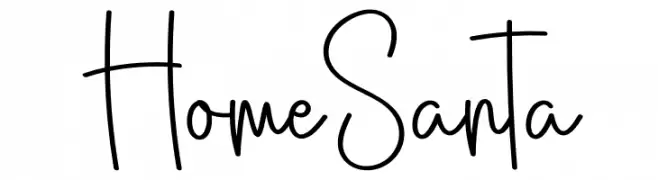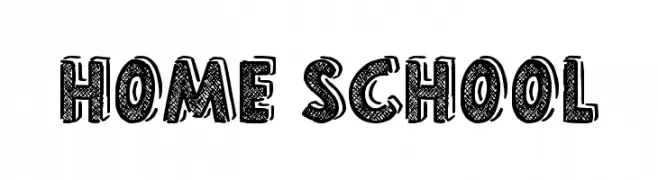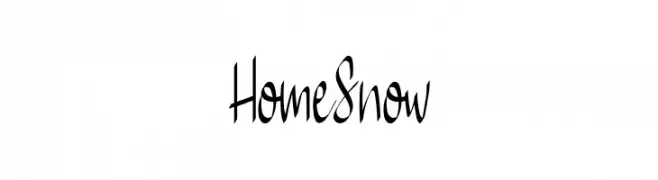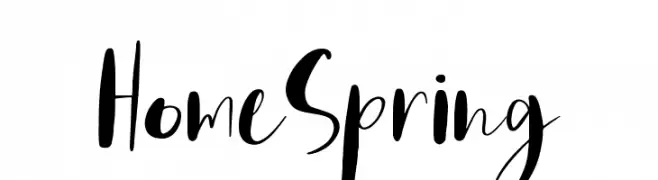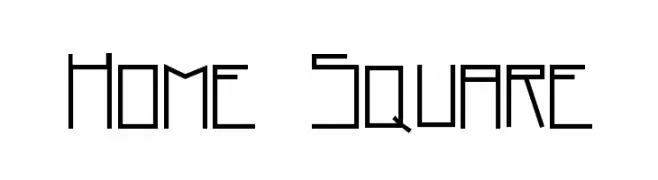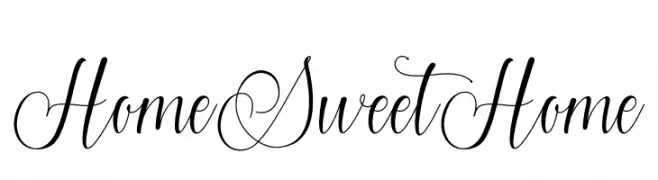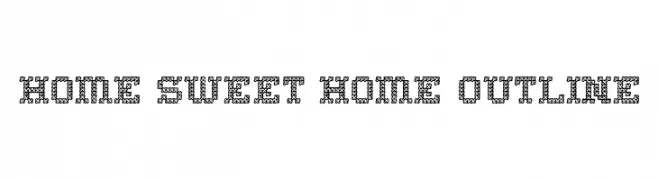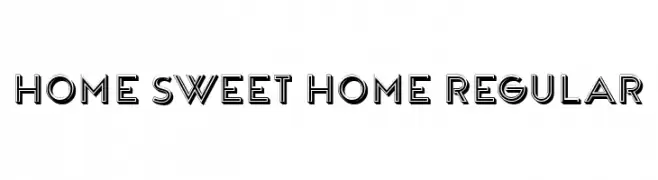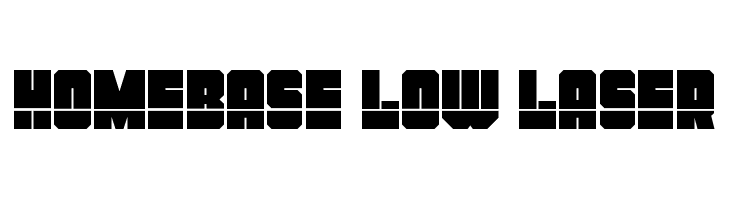
Tall, narrow, handwritten script with playful, casual strokes.
A bold, textured, hand-drawn font with a playful, three-dimensional appearance.
A dynamic, flowing script font with elegant, whimsical strokes.
A playful, handwritten script font with dynamic strokes and a lively appearance.
A lively, expressive handwritten font with fluid cursive strokes.
A geometric, angular font with consistent stroke width and a modern look.
An elegant script font with flowing, intricate loops and swashes.
A bold, decorative font with a 3D effect and geometric structure.